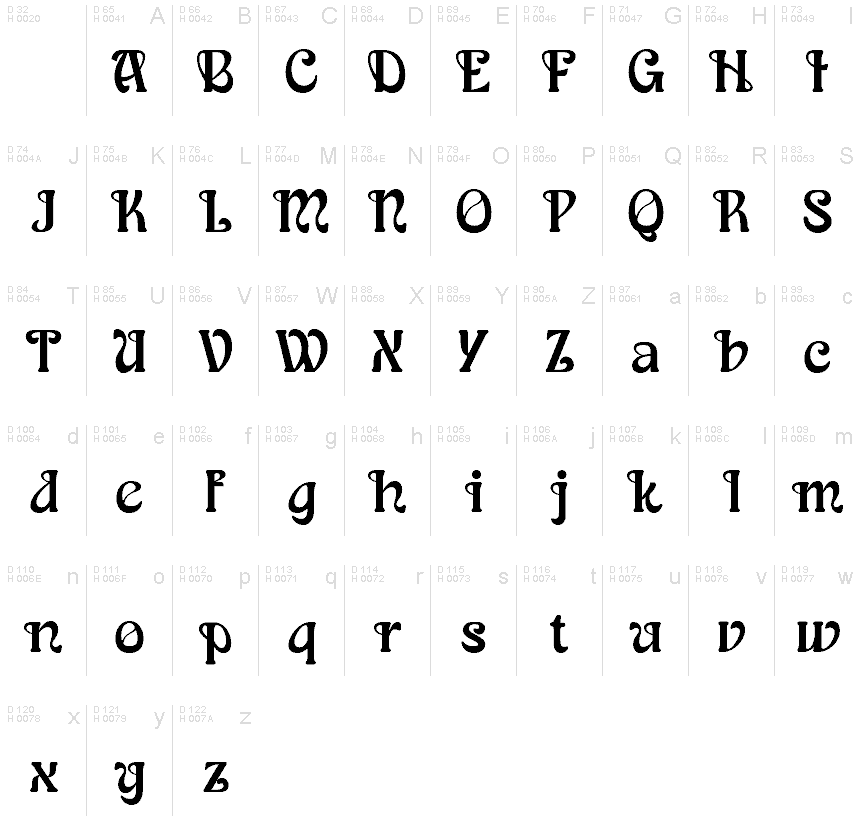
CS Bloom Demo Regular
CS Bloom font by Craft Supply Co. is an expressive vintage display serif typeface with ornamental characters, nostalgic aesthetics, and lots of charisma. Its artistic flair doesn’t go unnoticed while its decorative strokes make any piece of text breathtakingly beautiful beyond belief.
Use CS Bloom in magazine covers, headlines, posters, advertisements, books covers or inside books. Try in also in logos, invitations and greeting cards as a stylish decorative typeface that complements existing content effortlessly. This free vintage font is bewitching beyond belief and readers are sure to appreciate it.